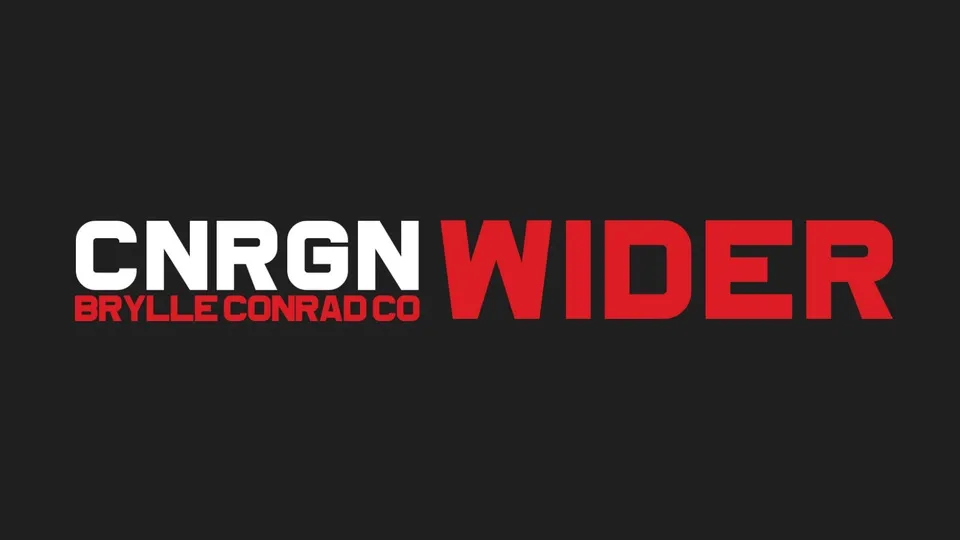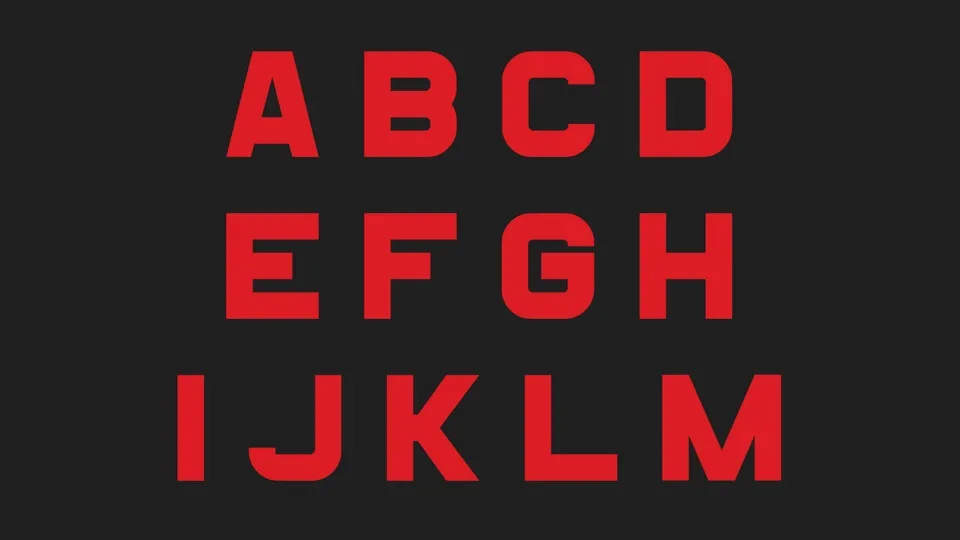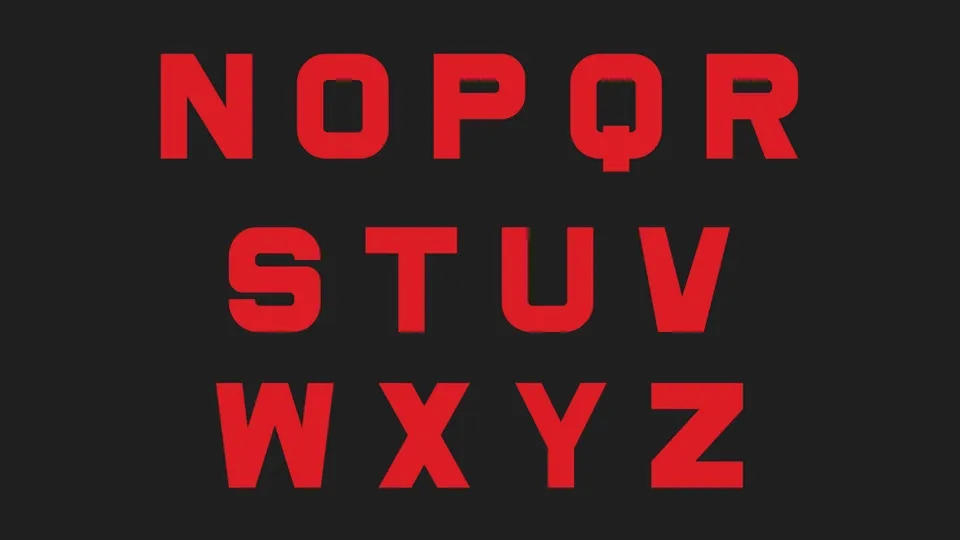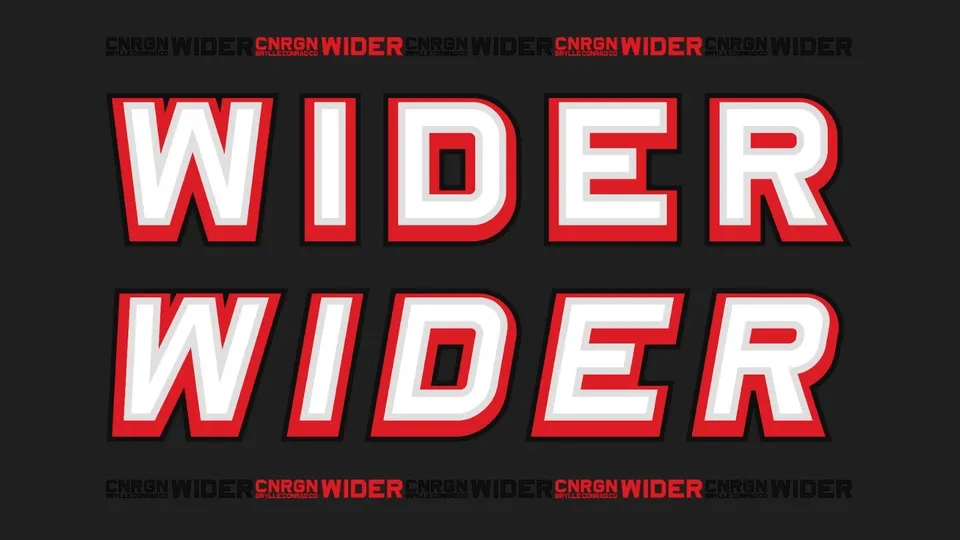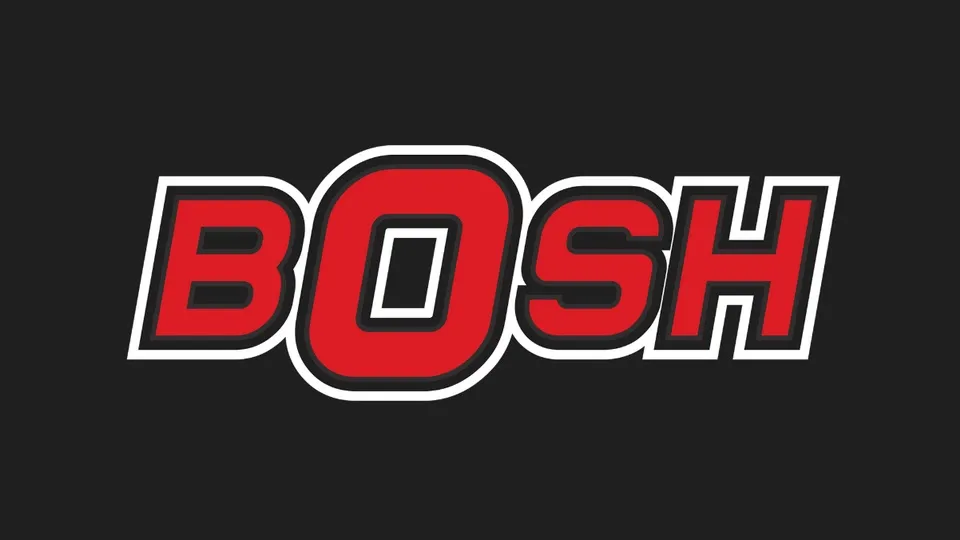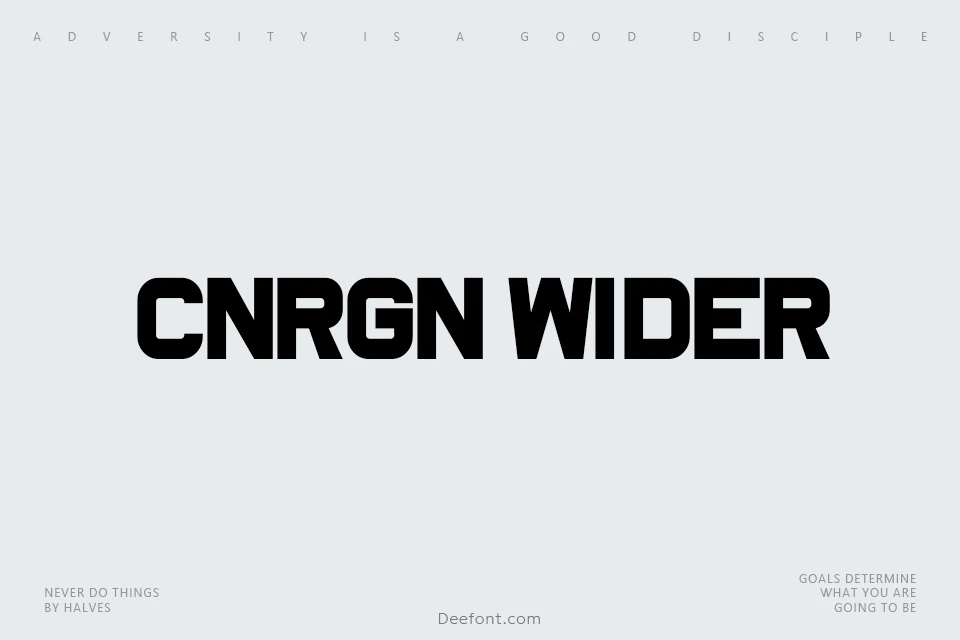
CNRGN Wider Font
CNRGN Wider Font is a bold and blocky display typeface designed to make a strong impression. With its sporty and robust personality, this font is ideal for secondary text, posters, headlines, and impactful messages, delivering a modern and energetic look to your creative projects.
Designed by:Brylle Conrad CoWebsite